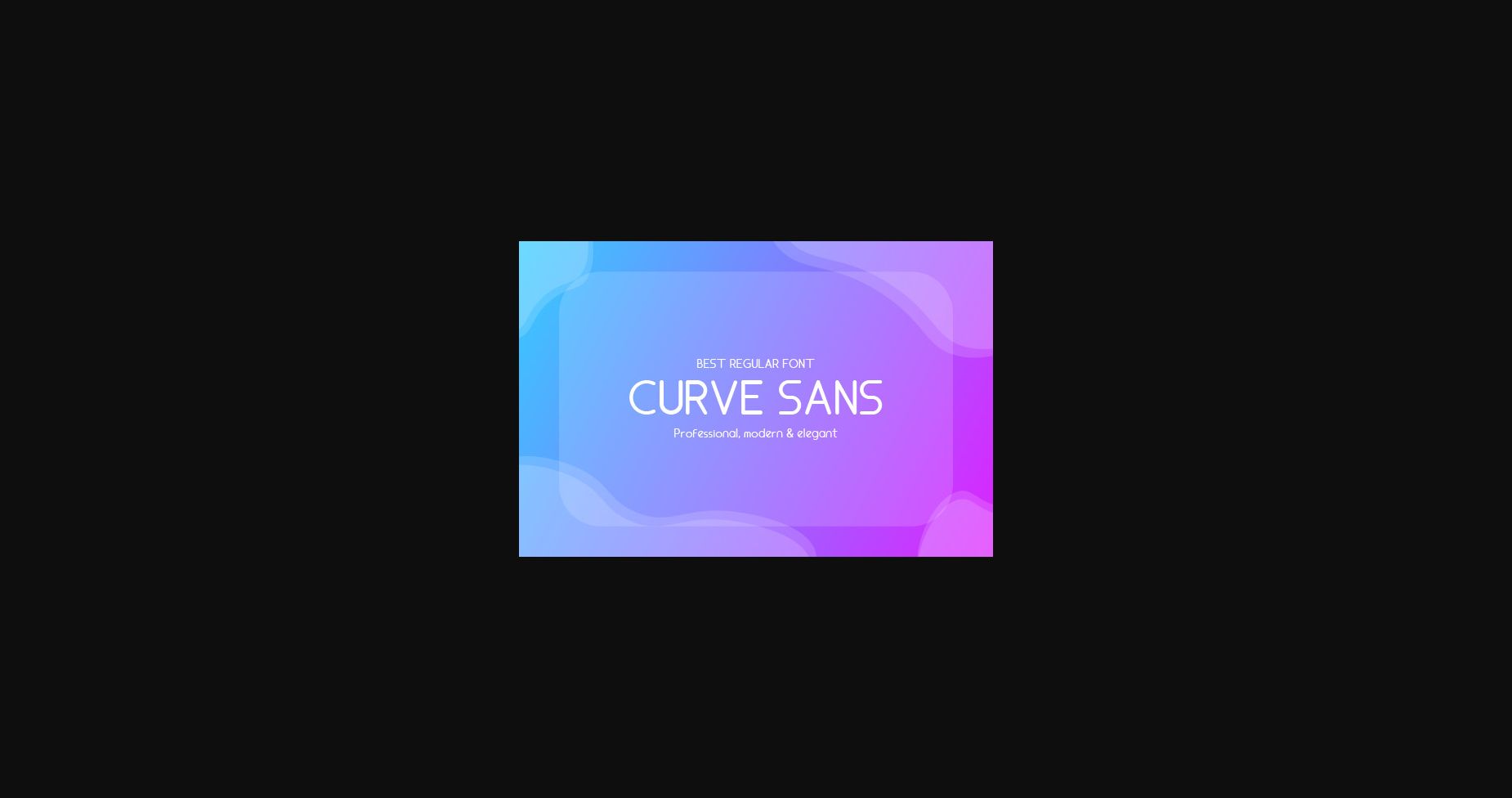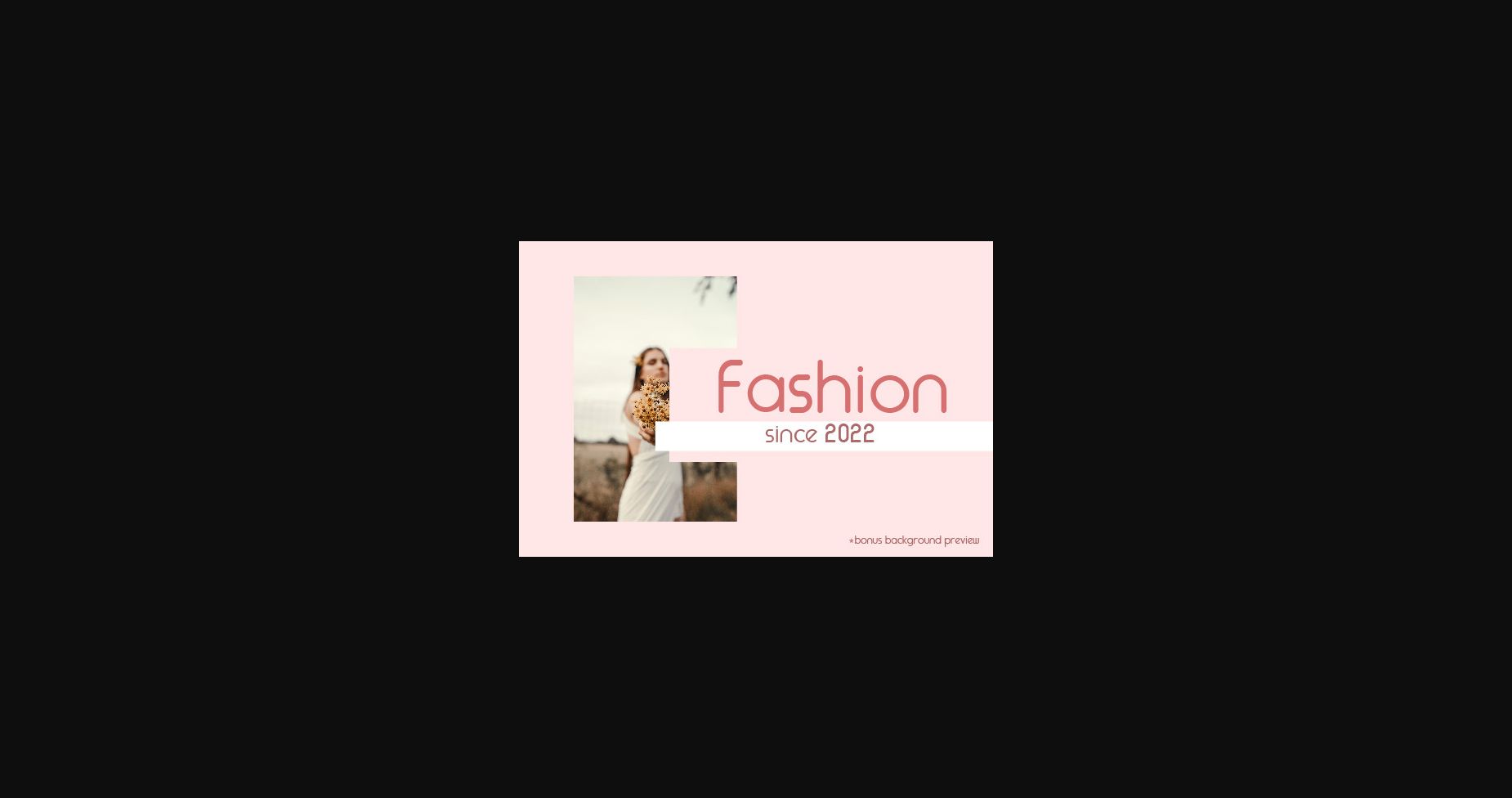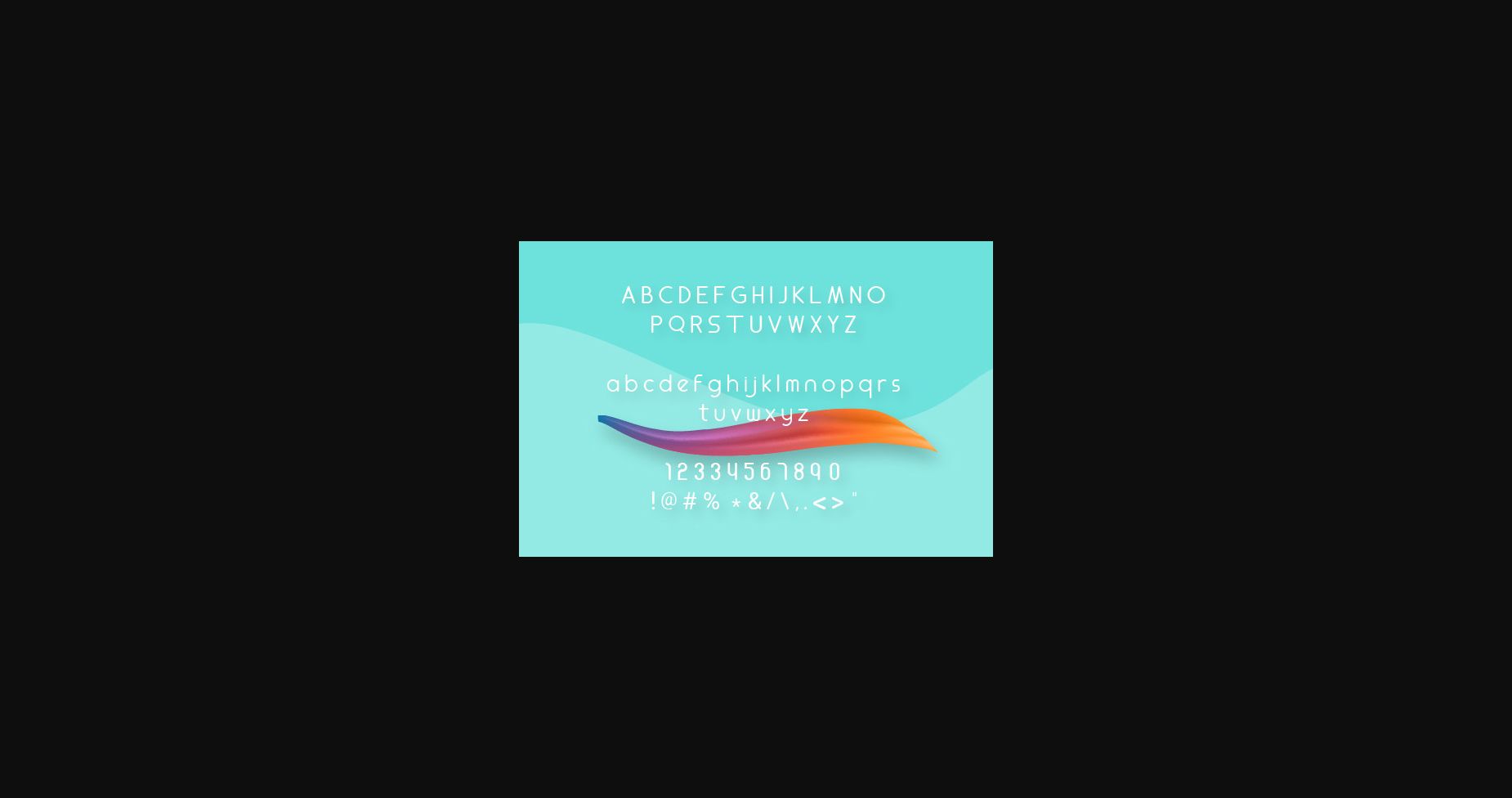
Curve Sans Pro Font
About Curve Sans Pro Font
Curve Sans Pro is an elegant, minimal, and neat sans serif font that is suitable for various large, small, or medium projects. It is a font that offers you many advantages. Multifunctional and comfortable to the eye, with many other advantages, it is designed to work perfectly on various backgrounds and give your project a professional look.